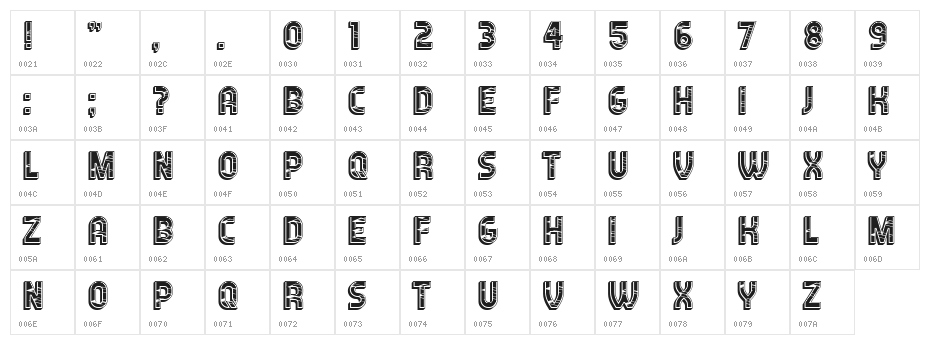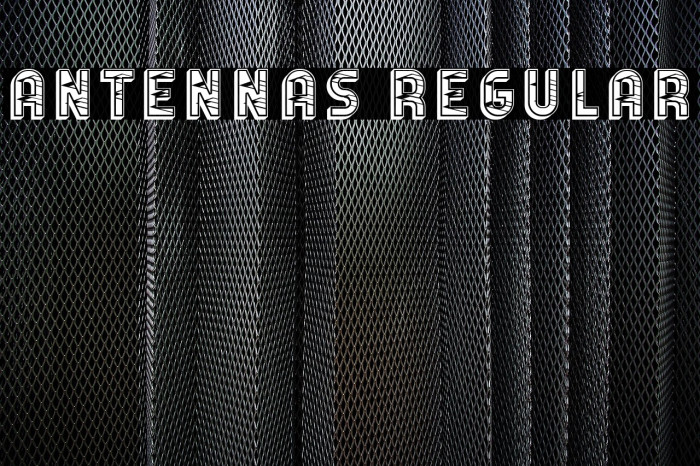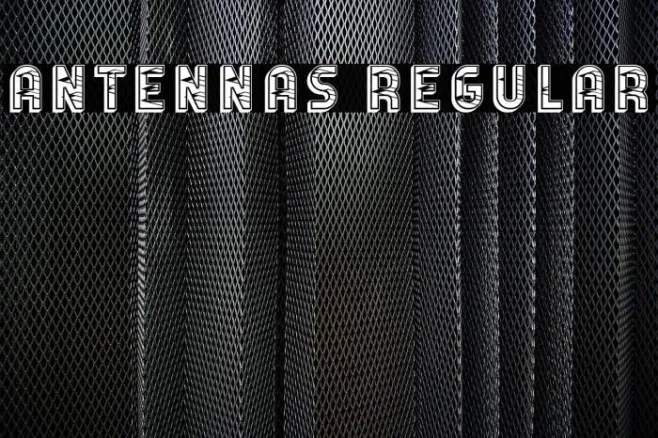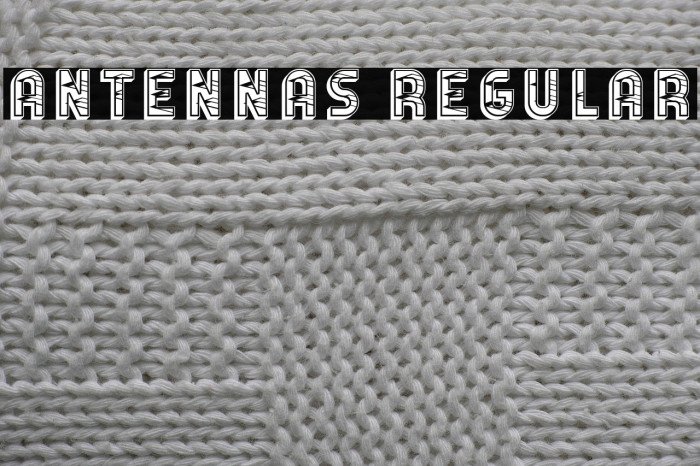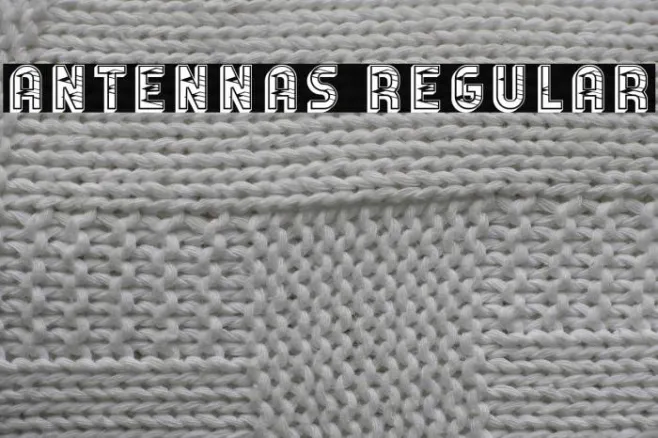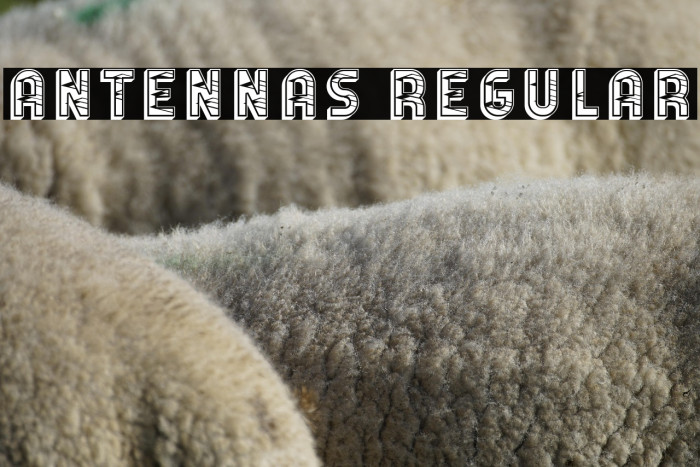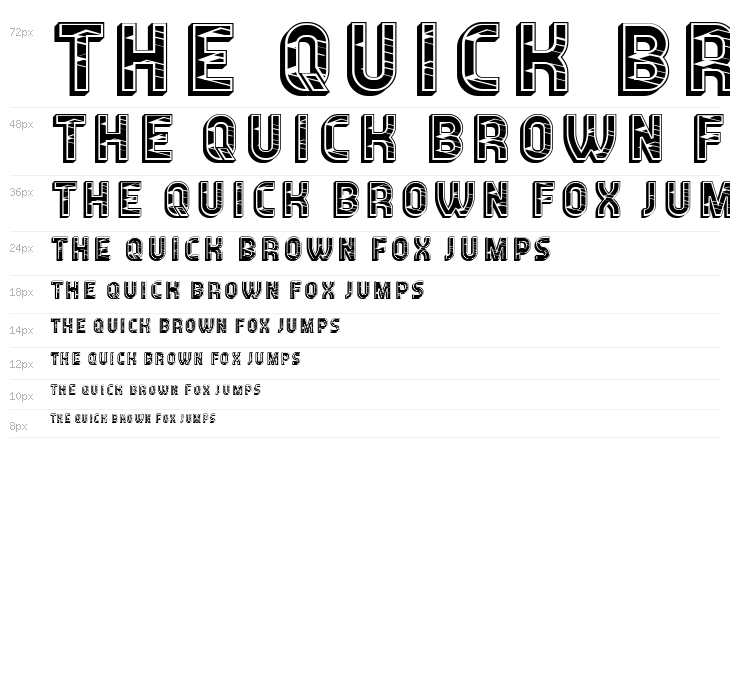
Antennas Regular Font
Antennas Regular Description
This font features a bold, geometric design with a distinct outline and internal line patterns that create a sense of depth and dimension. The characters are uppercase with a consistent width, giving them a uniform appearance. The style is reminiscent of industrial or technological themes, with a modern twist. The numbers and special characters maintain the same bold and structured aesthetic, making them stand out. This font is ideal for projects that require a strong visual impact and a contemporary feel.
| Proposed Projects | Ideal for technology-themed posters, futuristic branding, and eye-catching headlines. |